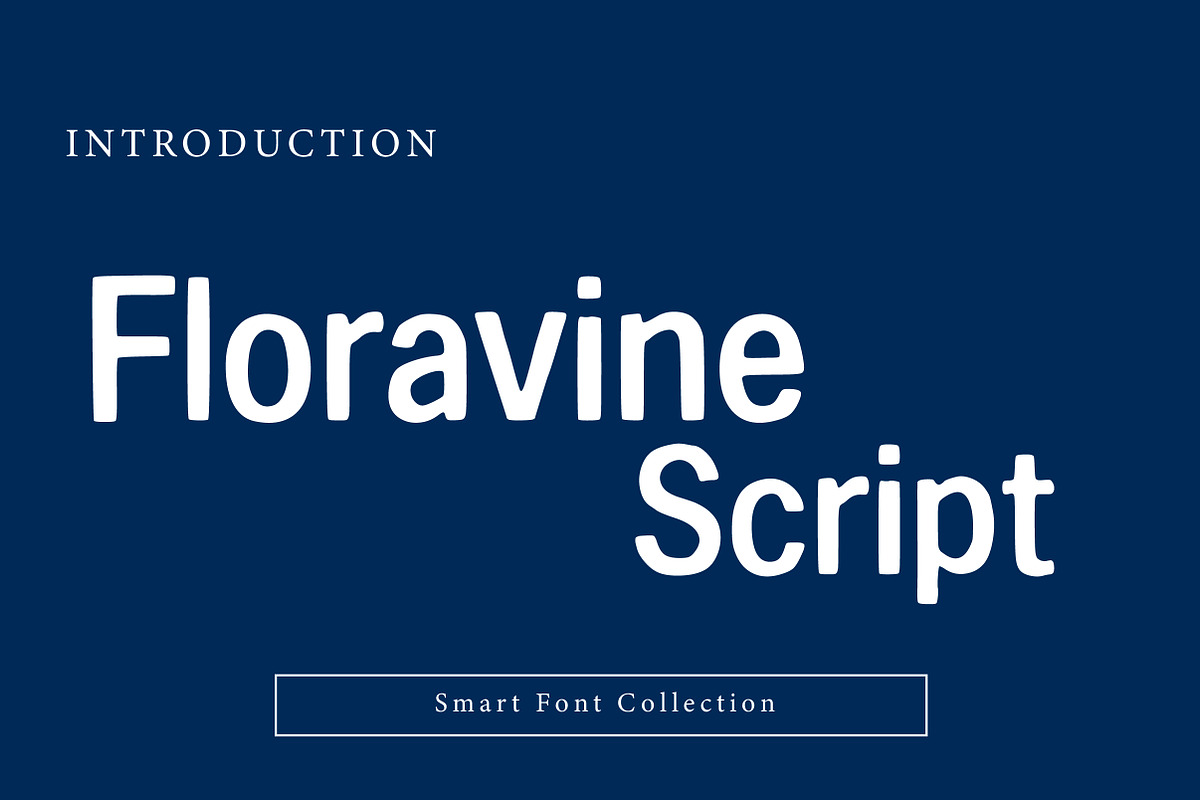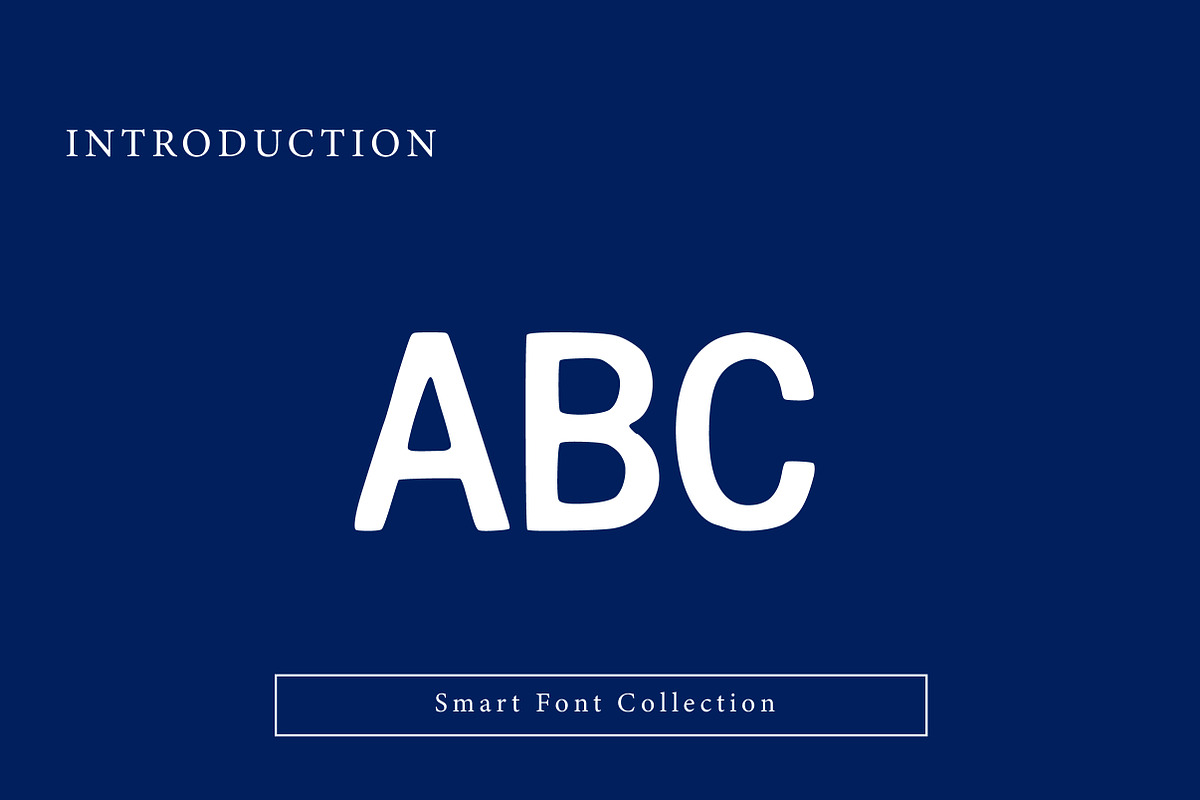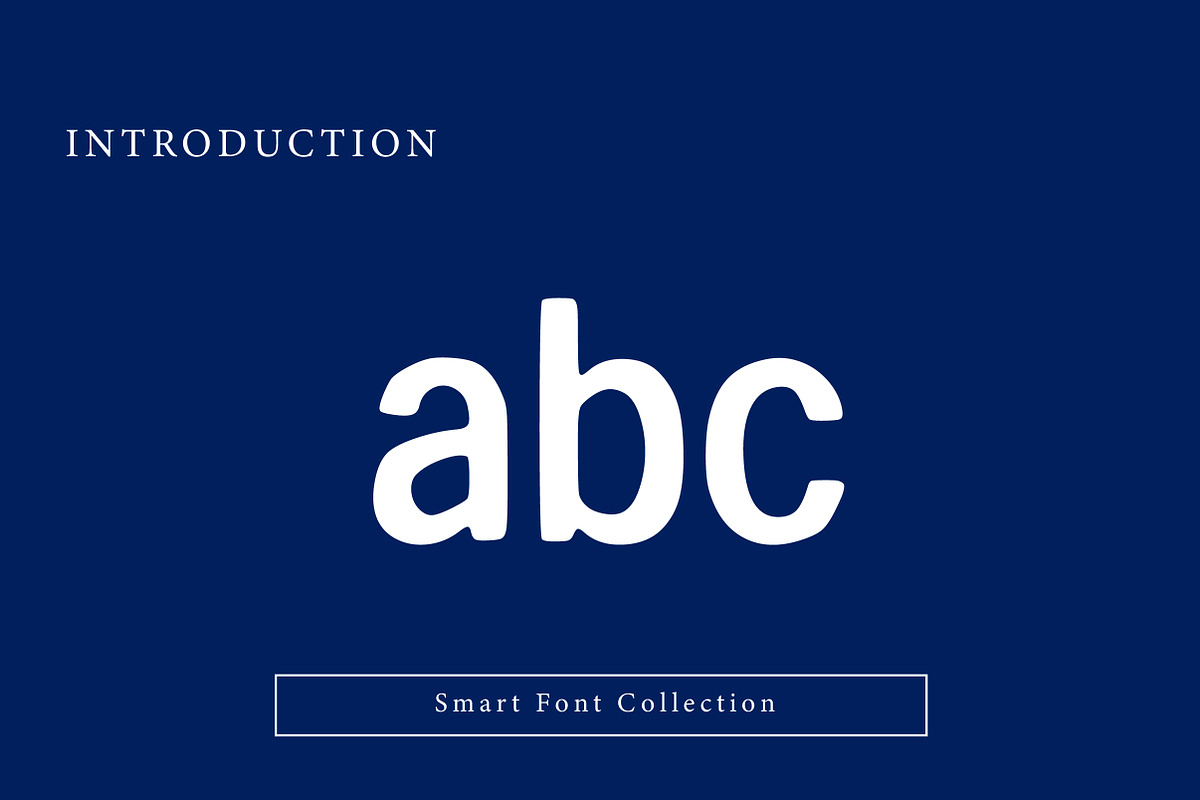
Floravine Script
Floravine Script is a romantic and elegant handwritten script font inspired by modern calligraphy with a soft floral touch. Featuring smooth flowing strokes, graceful curves, and a stylish signature feel, this font is perfect for wedding invitations, logos, branding, quotes, social media posts, beauty packaging, boutique labels, and luxury typography projects. Floravine Script adds a delicate, classy, and feminine personality to any design, making it ideal for floral branding, romantic layouts, and premium creative work.